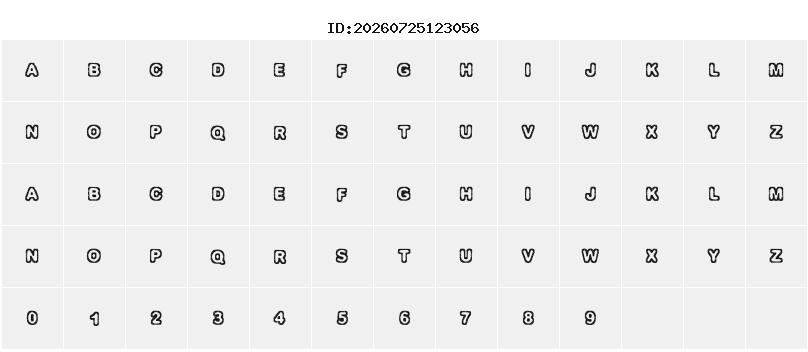
Izolation Preview
• Font Name: Izolation
• Full Font Name: Izolation
About Izolation.ttf
Izolation.ttf is a modern, elegant sans-serif font designed for ultimate readability and visual harmony. Perfect for branding, headlines, web design, and print materials.